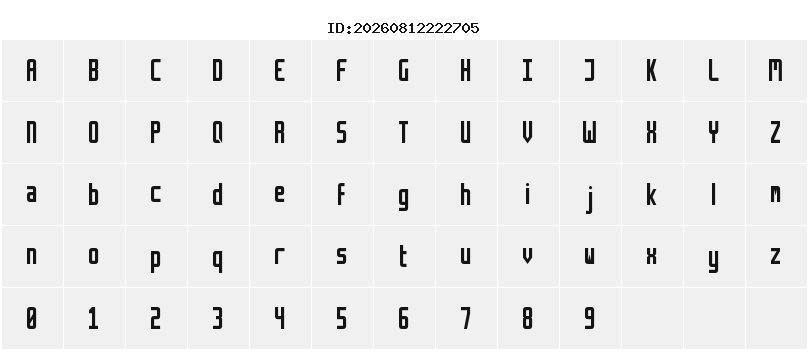
About Retriga.ttf
Retriga.ttf is a modern, elegant sans-serif font designed for ultimate readability and visual harmony. Perfect for branding, headlines, web design, and print materials.